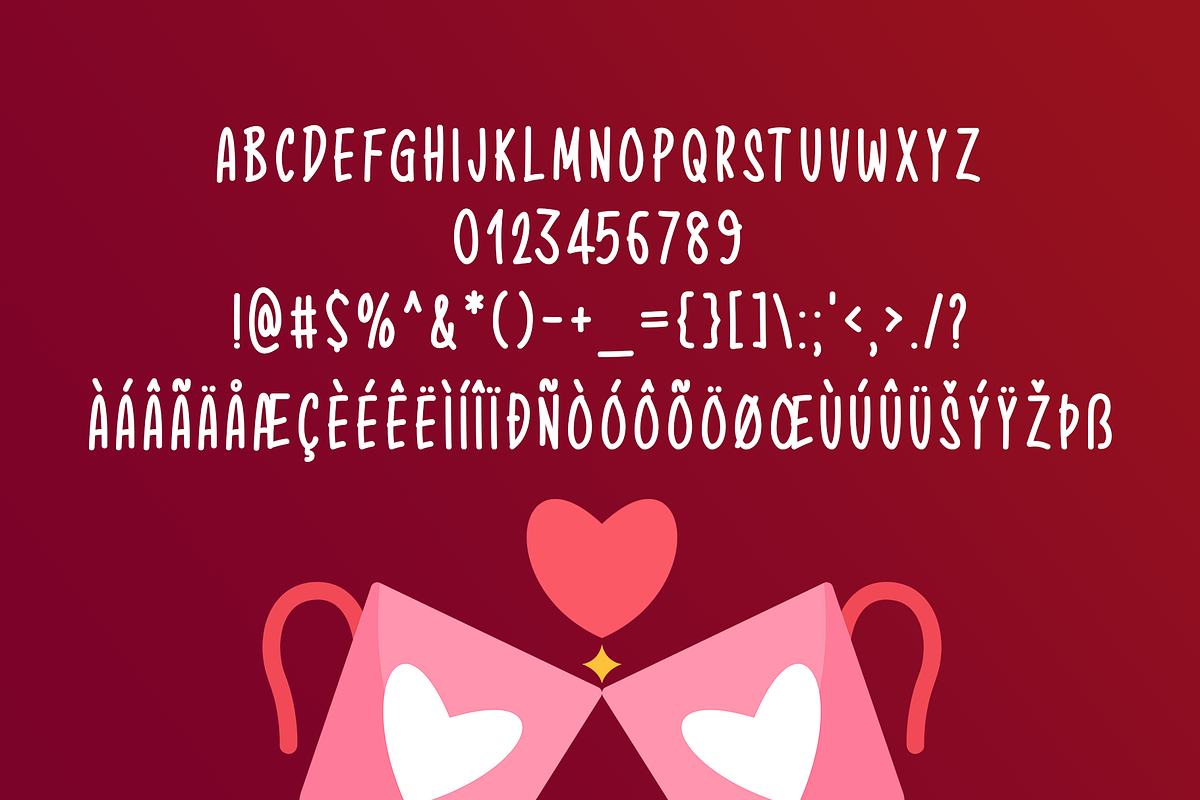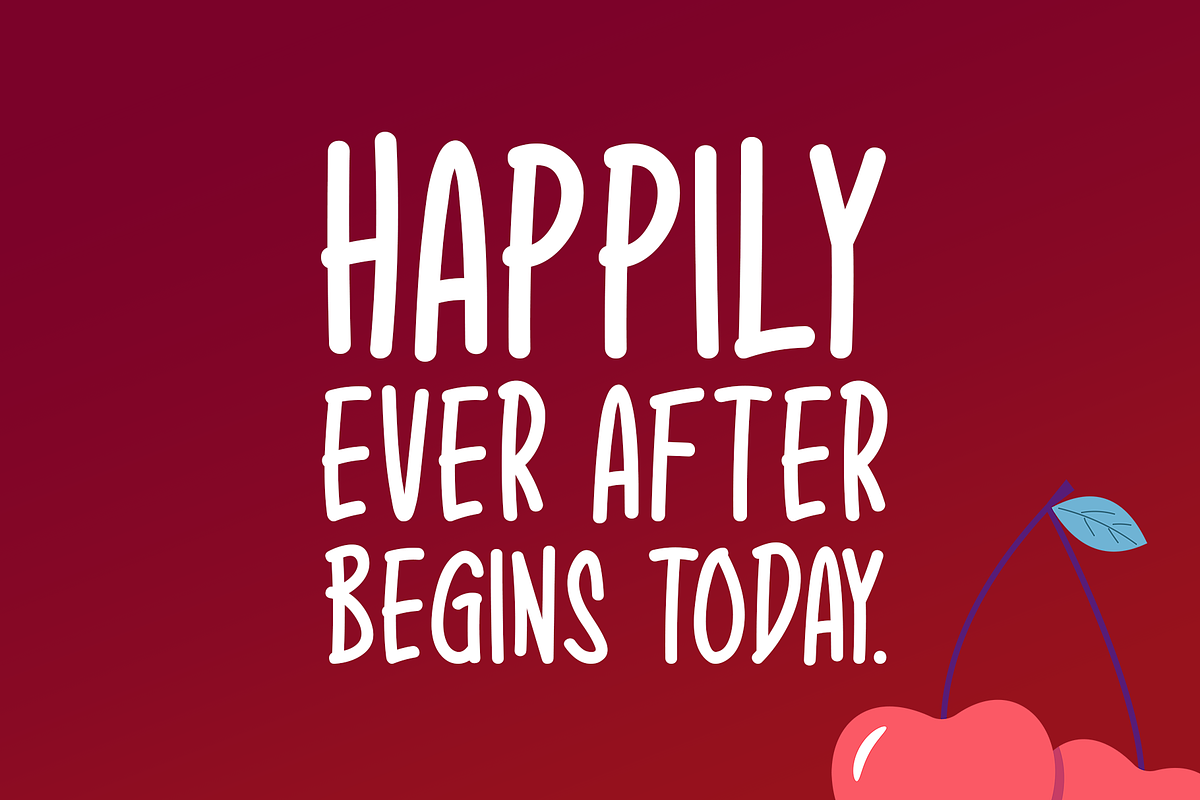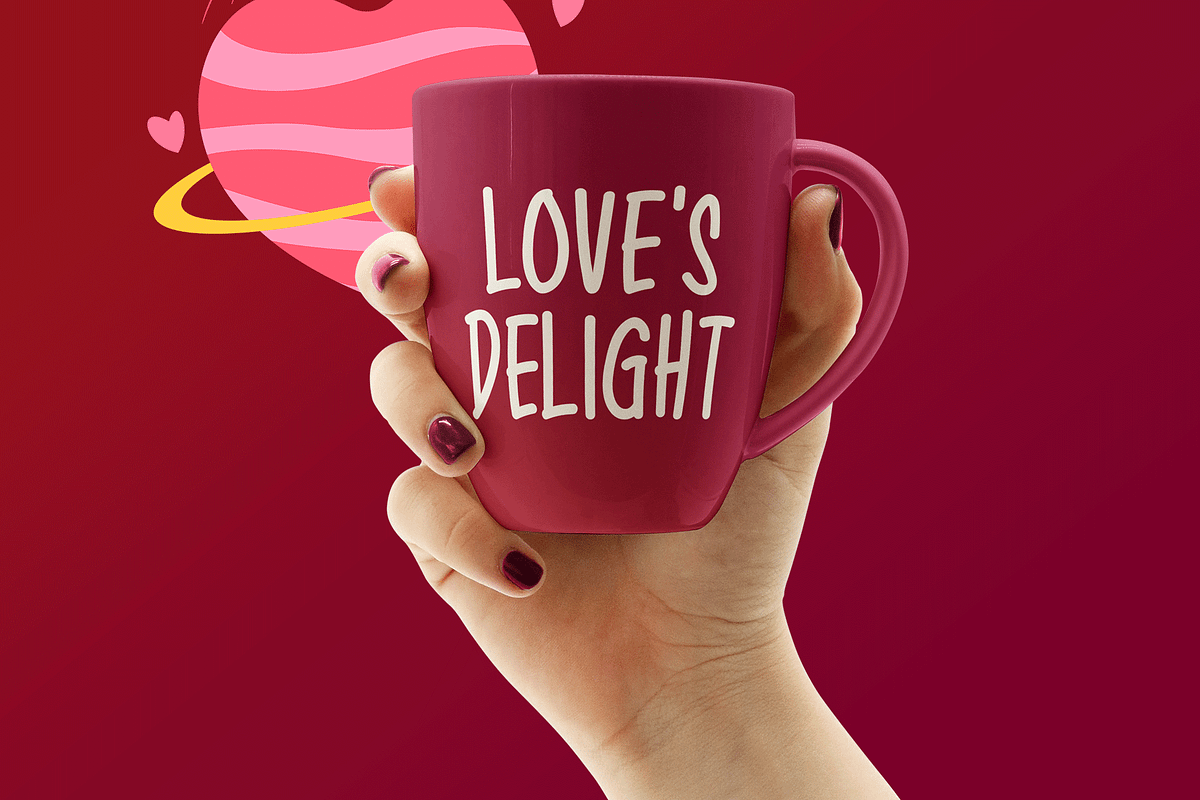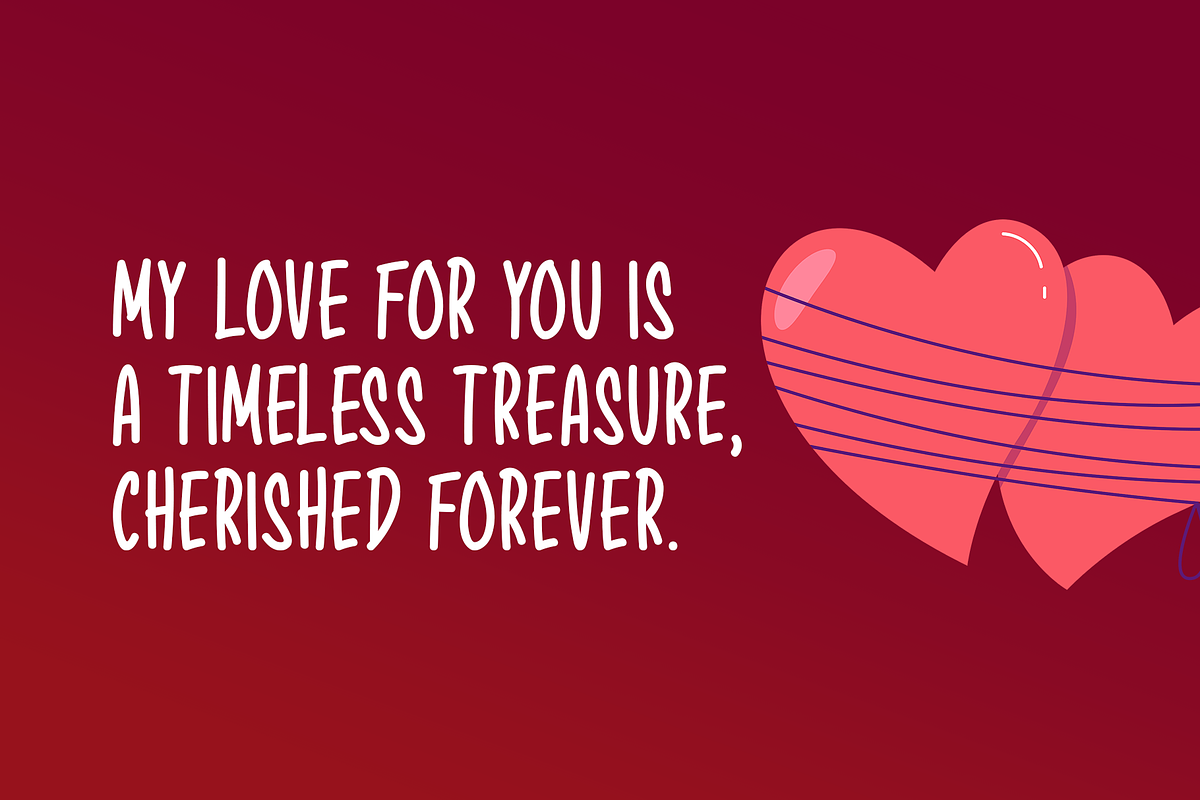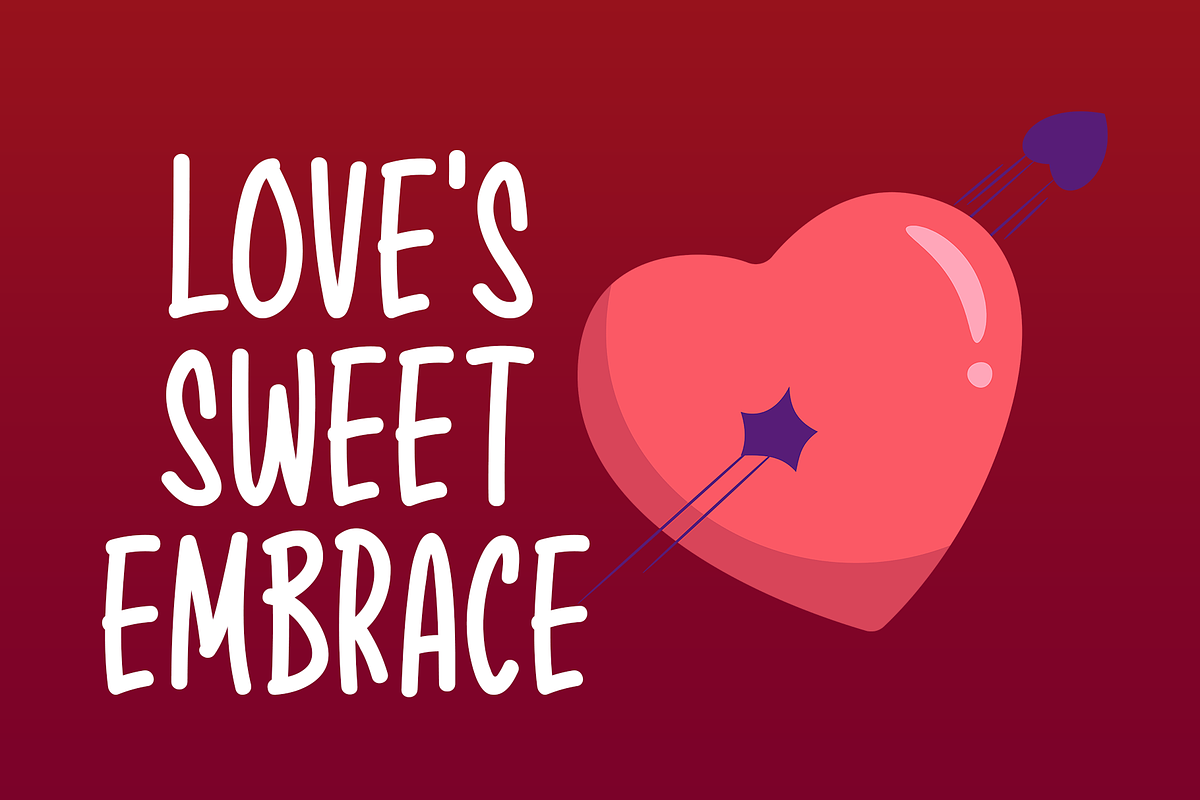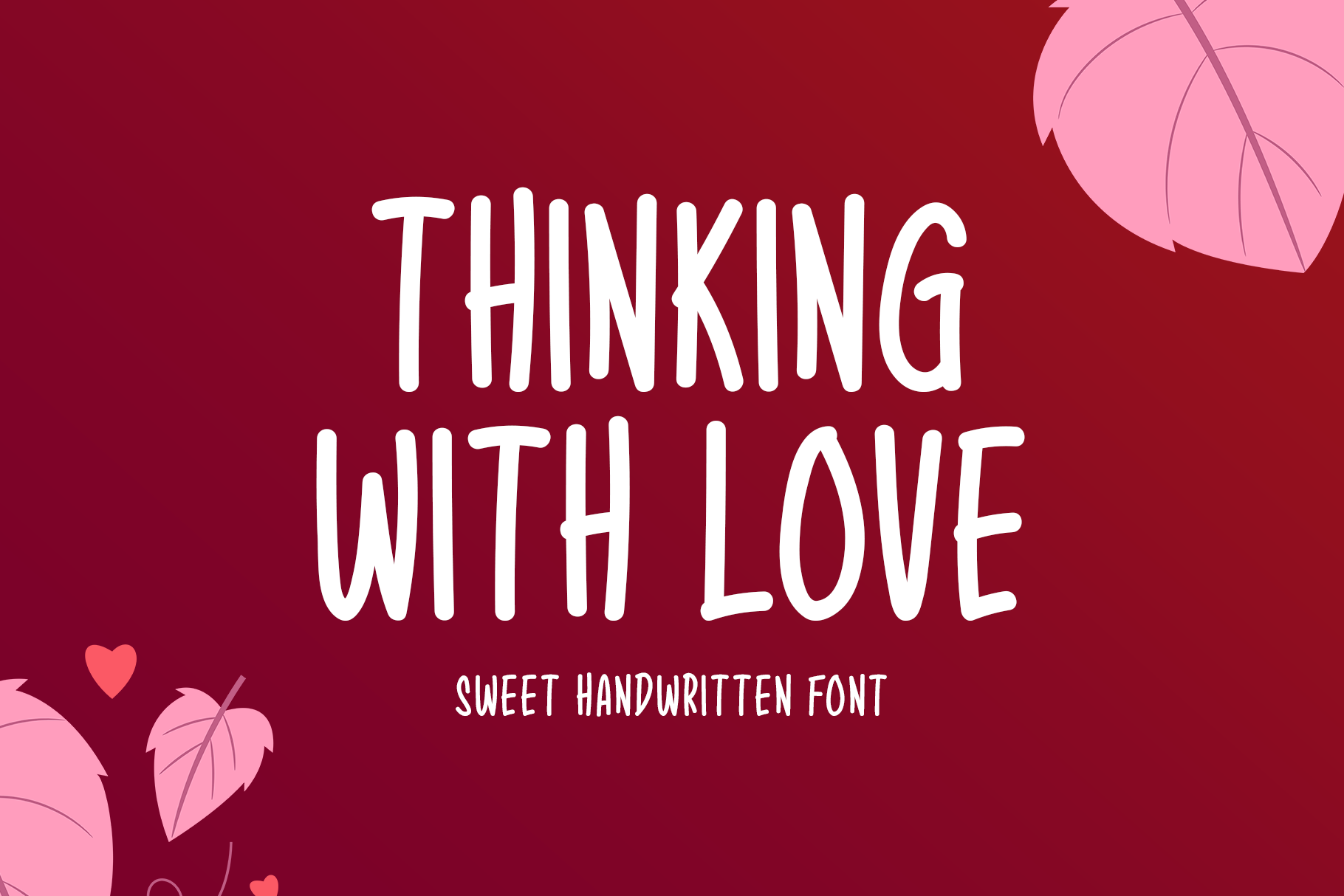
Thinking With Love Typeface
Introducing Thinking With Love!
Thinking With Love is a sweet handwritten font that brings a sense of warmth and whimsy to any project. With its graceful, flowing design, it’s perfect for a range of creative endeavors such as stationery, branding, t-shirt designs, printed materials, website headers, photo frames, flyers, album covers, posters, and digital content like image sliders. Whether you’re working on seasonal designs or year-round projects, this font beautifully conveys a heartfelt, personal touch that is ideal for spreading cheer and positivity.
Includes a range of multilingual support